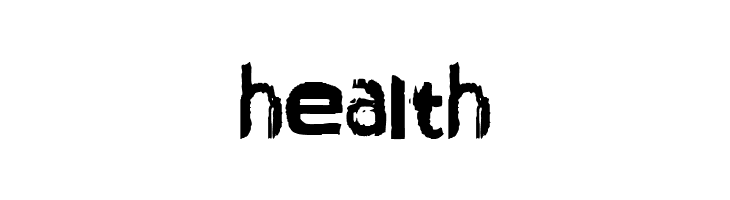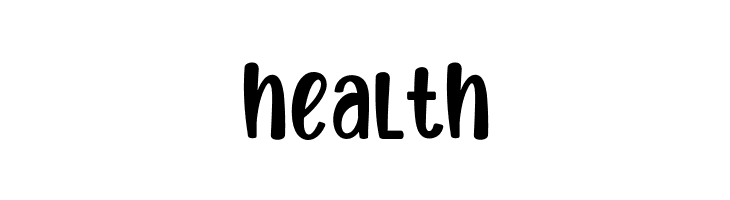
A cursive, handwritten-style font with elegant, flowing characters.
A delicate and flowing script font with elegant curves and a handwritten feel.
A lively handwritten font with fluid strokes and playful curves.
A bold, geometric font with sharp angles and a modern, artistic style.
A bold, distressed font with a hand-drawn, chaotic style.
A bold, distressed font with a rough, textured appearance.
An elegant, flowing script font with ornate uppercase and smooth lowercase letters.
A lively, hand-drawn script font with tall, narrow letters and playful loops.
A playful, bold, and rounded font with a hand-drawn aesthetic.
A flowing, cursive script font with an elegant, handwritten style.